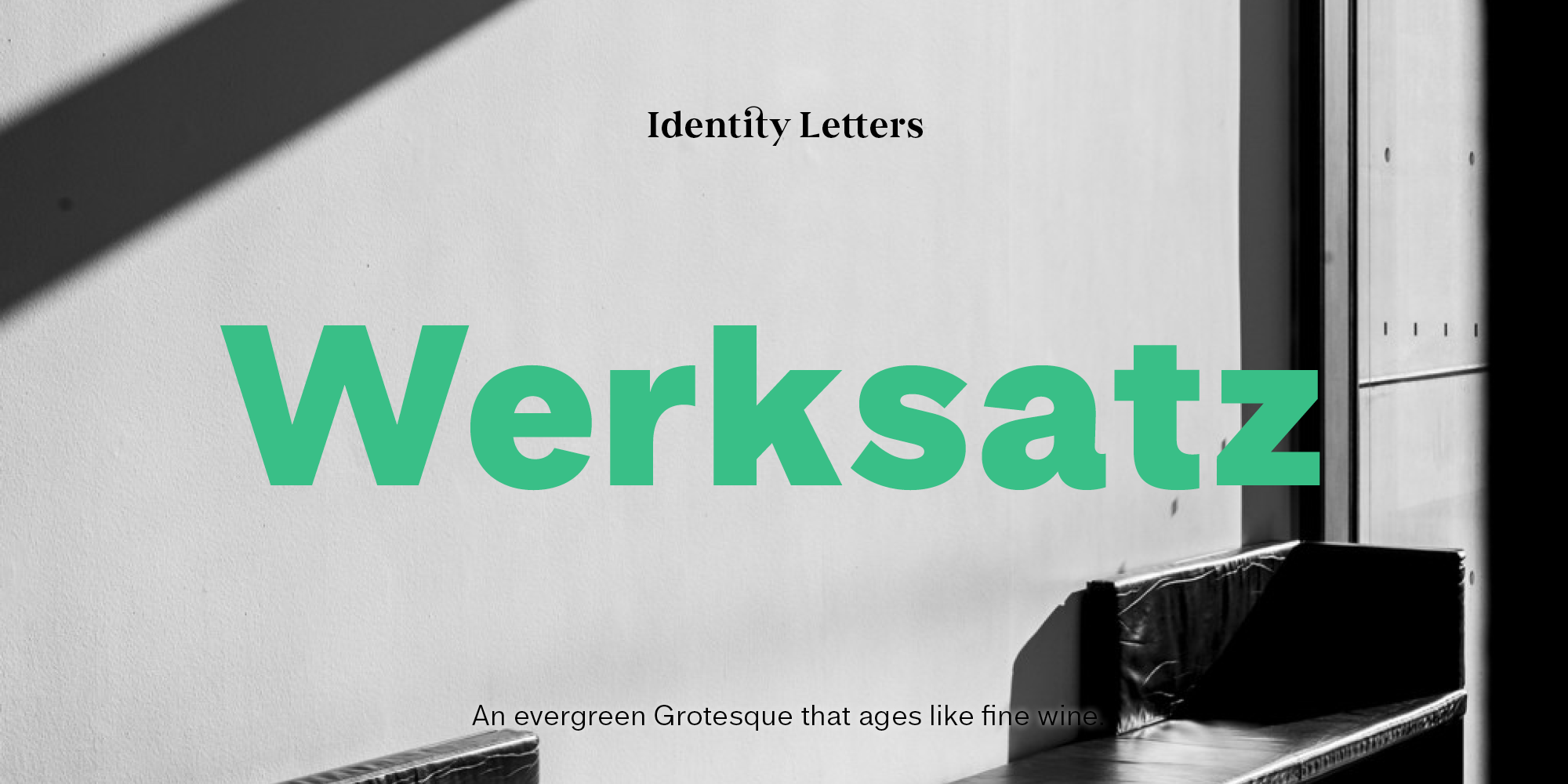
Werksatz Font is perfect for German engineering firms, precision manufacturing companies, automotive industry branding, industrial design studios, technical documentation layouts, machinery equipment catalogs, construction company identities, architectural blueprints, mechanical engineering presentations, and Swiss-German corporate communications. Its precise industrial character makes it ideal for projects requiring Germanic engineering excellence and technical precision authenticity.
What makes Werksatz Font exciting is its masterful embodiment of German engineering precision and industrial craftsmanship with systematic letterforms and technical characteristics that capture the essence of Germanic manufacturing excellence and mechanical precision. The font features precise geometric construction, methodical spacing relationships, and engineering-inspired character details that create authentic industrial atmosphere and technical appeal. Its systematic personality brings reliability and precision to contemporary designs while maintaining the clarity essential for technical communications and industrial presentations. The carefully engineered technical elements ensure optimal functionality while preserving the distinctive character that embodies the essence of German engineering and industrial excellence.
Werksatz Font comes in multiple technical variations including Light, Regular, Medium, Bold, and Technical styles. Each family member maintains the distinctive engineering character while offering comprehensive flexibility for industrial typography and technical brand system development. The complete font family includes alternate characters, technical symbols, and engineering punctuation marks that provide essential tools for technical communication excellence and industrial presentation quality.
Whether you're developing engineering brands, industrial companies, or technical documentation projects, Werksatz Font Free Download provides the systematic precision needed to communicate with technical audiences and engineering professionals who appreciate Germanic quality and industrial excellence. The font's technical appeal resonates with engineers, manufacturers, and industrial designers seeking authentic German engineering credibility and systematic sophistication. Its comprehensive character set includes technical symbols and engineering marks, making it perfect for creating complete industrial brand systems and memorable engineering storytelling across diverse technical applications and precision-focused design projects that celebrate German craftsmanship and engineering excellence.